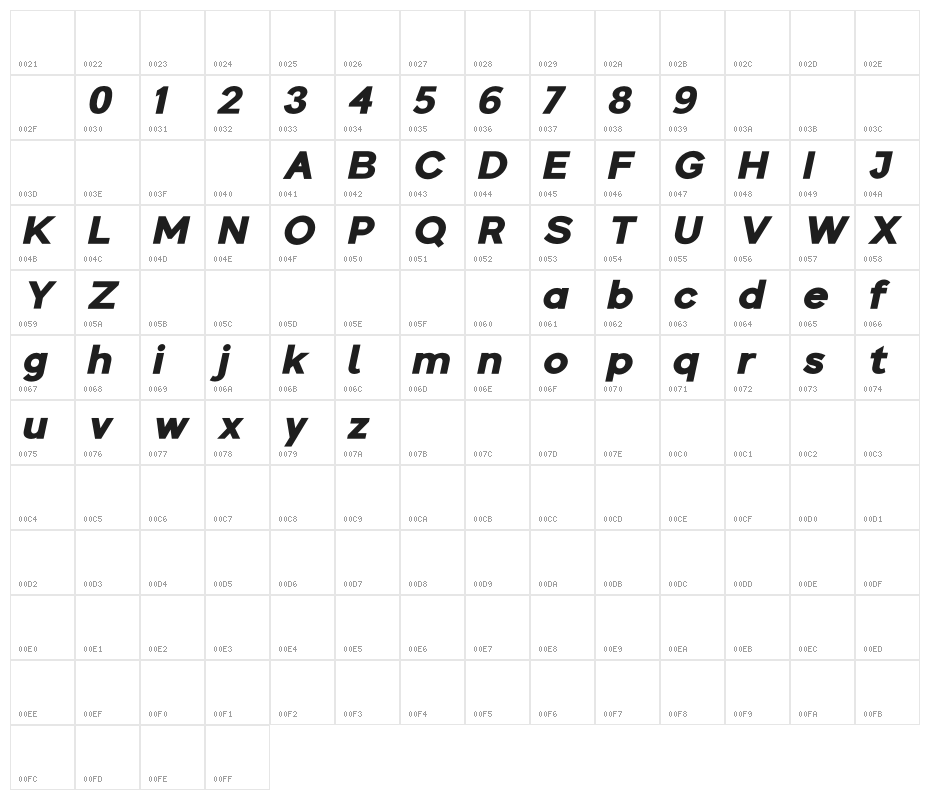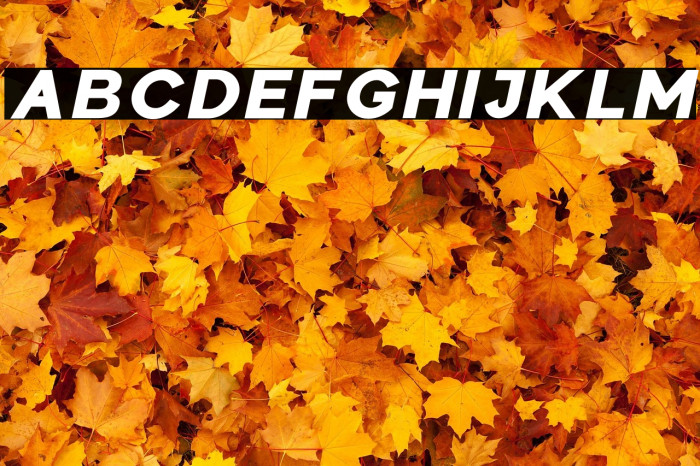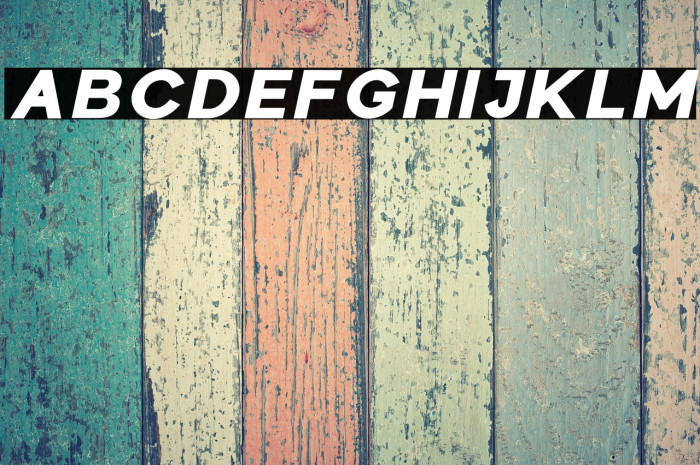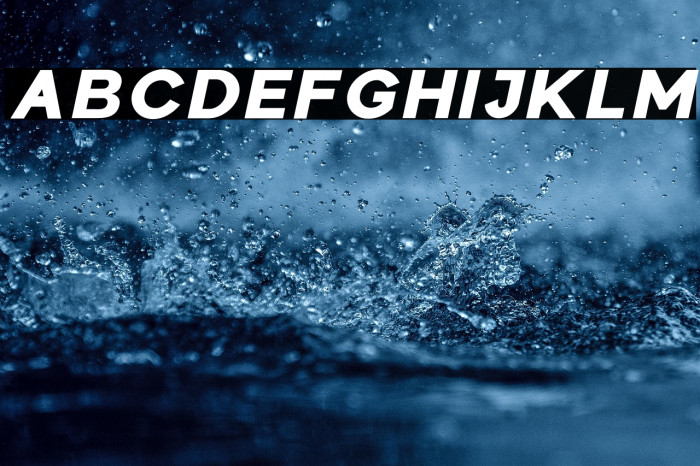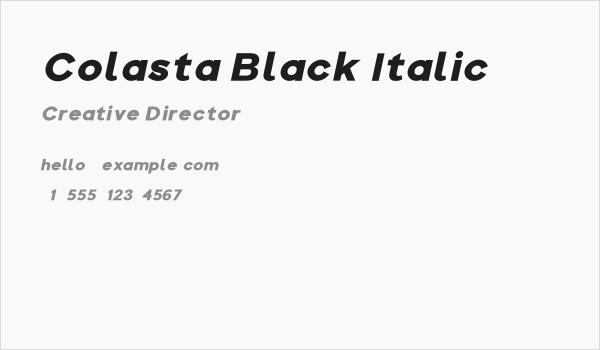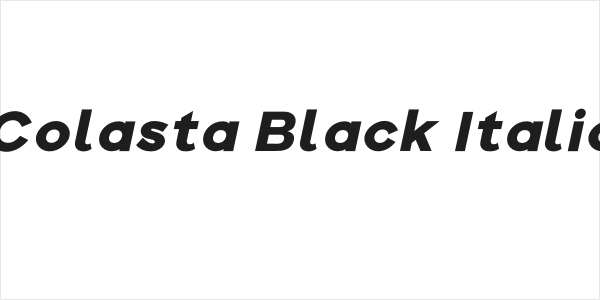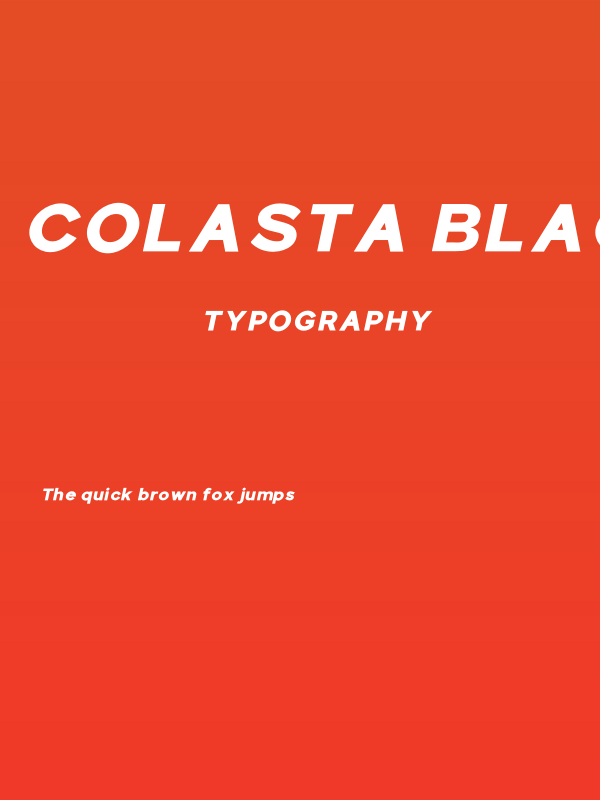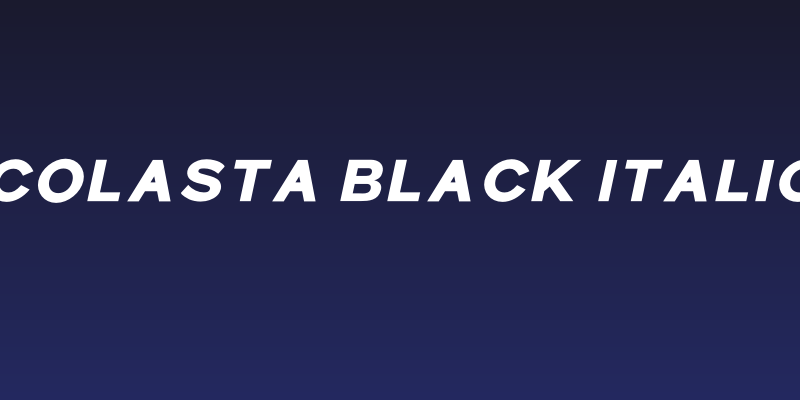
Colasta Black Italic Font
Colasta Black Italic Description
This font features a bold and italicized style, characterized by its strong and assertive appearance. The letters are slightly slanted, giving a dynamic and forward-moving impression. The strokes are thick and consistent, providing a sense of stability and confidence. The overall design is modern and sleek, making it suitable for contemporary projects. The numbers and special characters maintain the same bold and italicized style, ensuring uniformity across all characters.